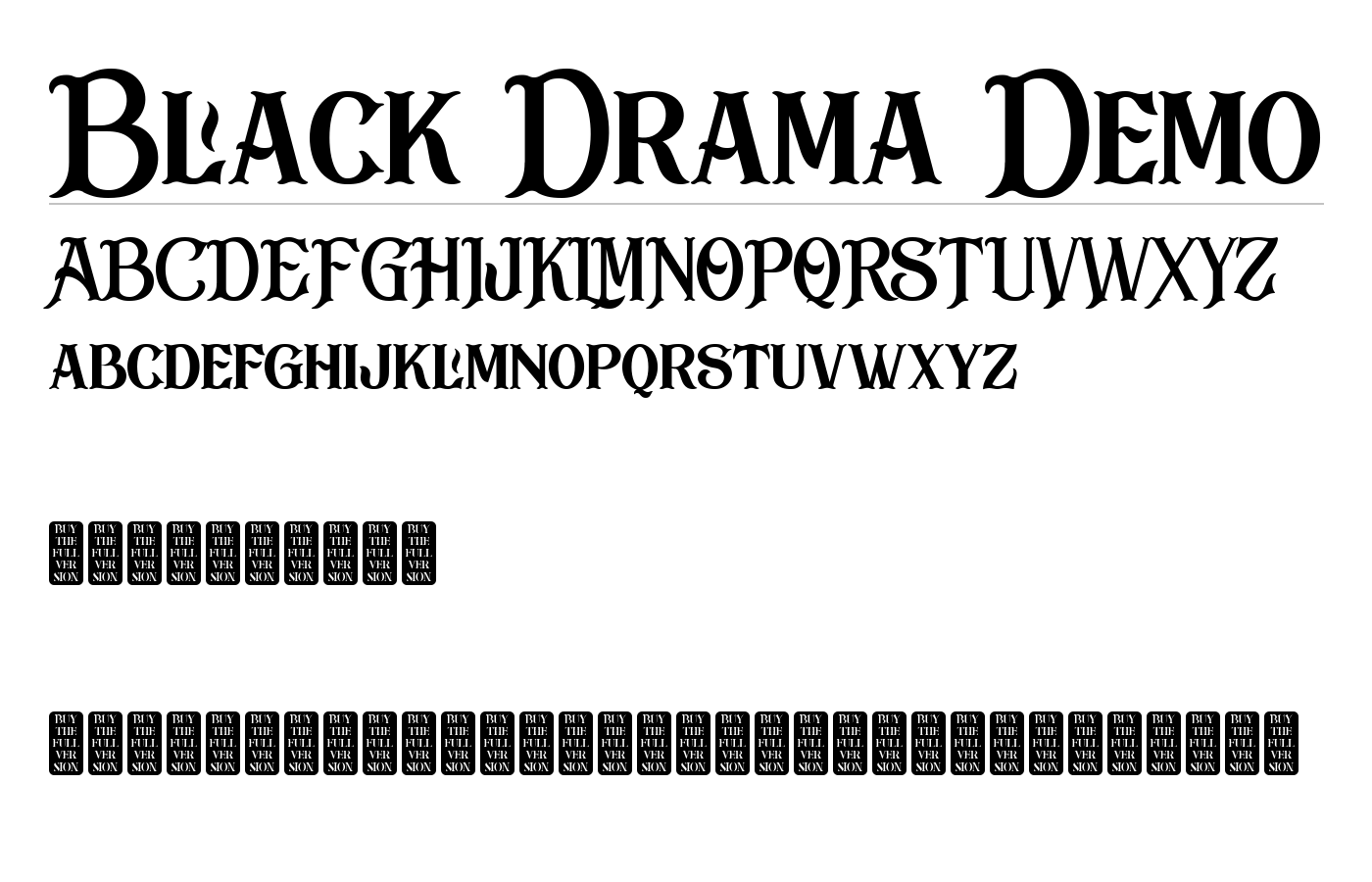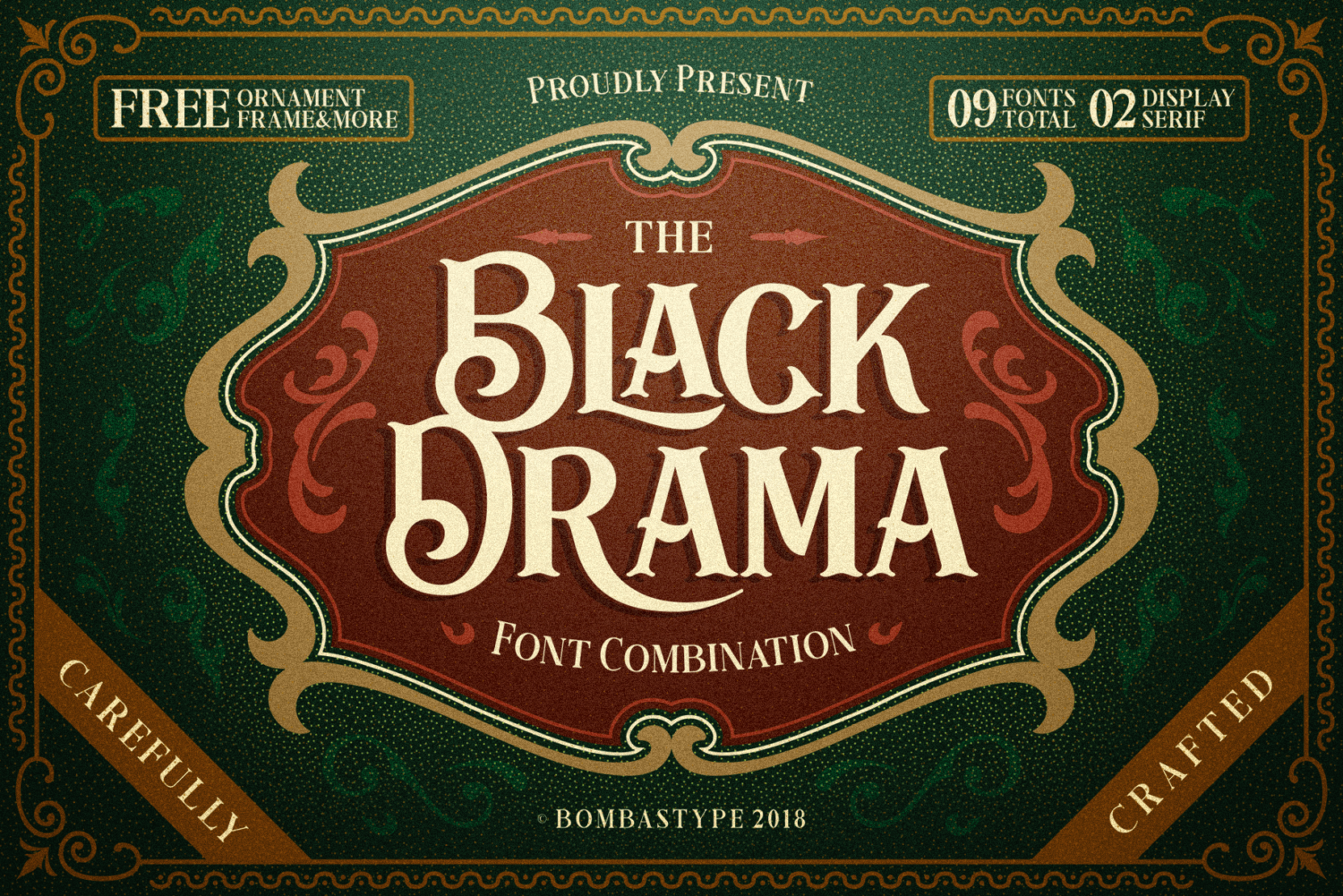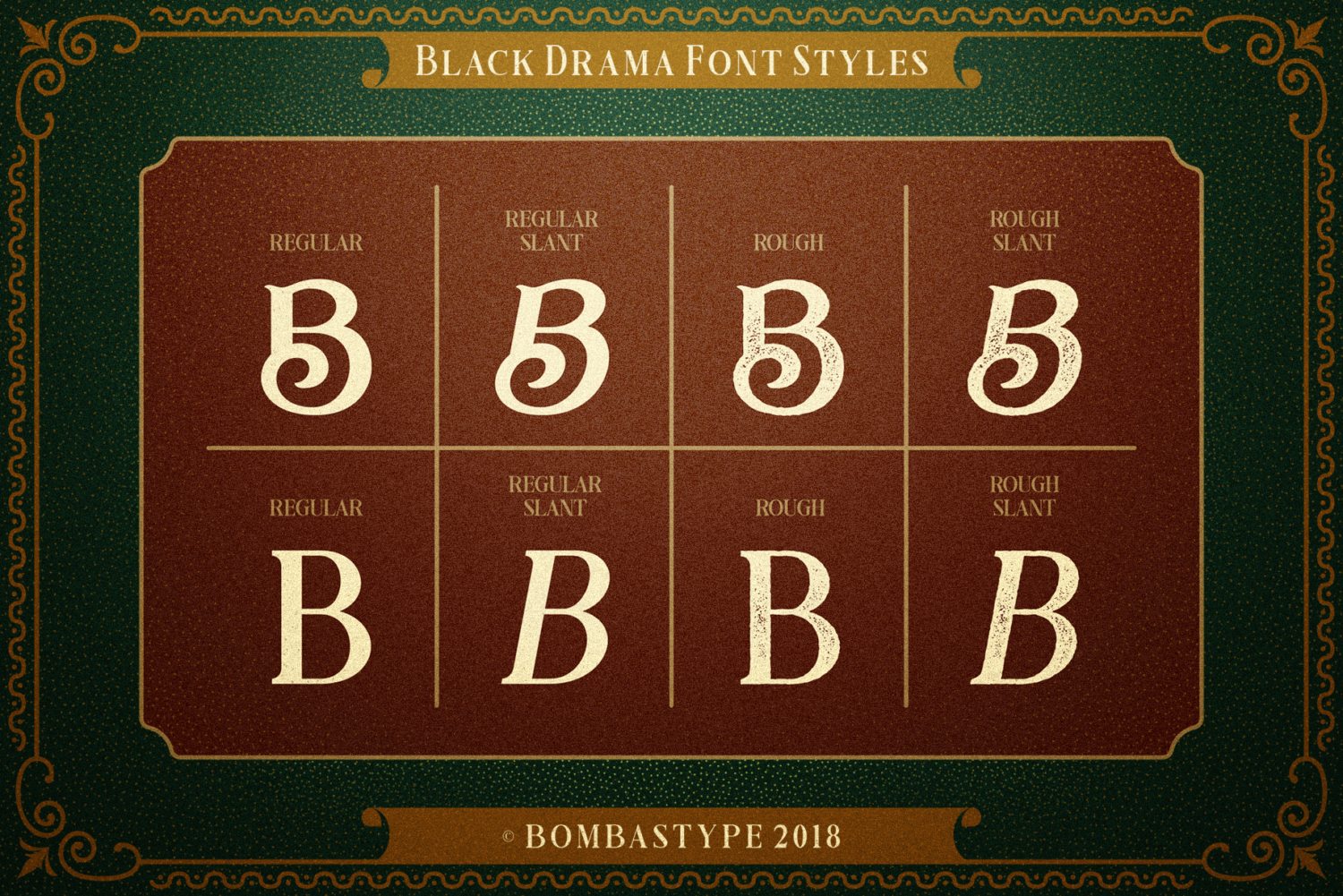
Black Drama is a distinctive serif typeface with bold, dramatic strokes and a vintage flair, featuring high contrast between thick and thin lines and unique, ornamental shapes that evoke a theatrical and classic mood. Its condensed proportions and sharp serifs make it perfect for headlines, logos, and display uses where a strong, expressive personality is desired, especially in branding related to entertainment, fashion, or luxury. This font commands attention with its elegant yet unconventional style, making it ideal for striking visual impact.
Black Drama Font
About Black Drama Font